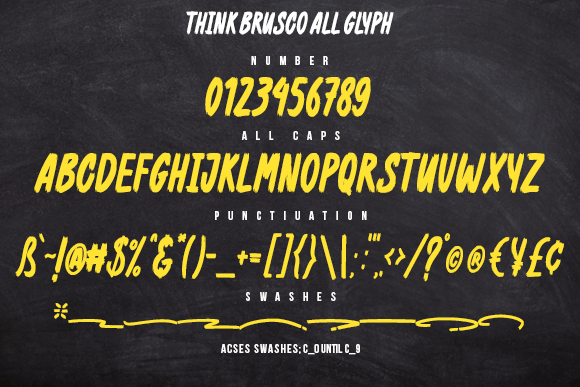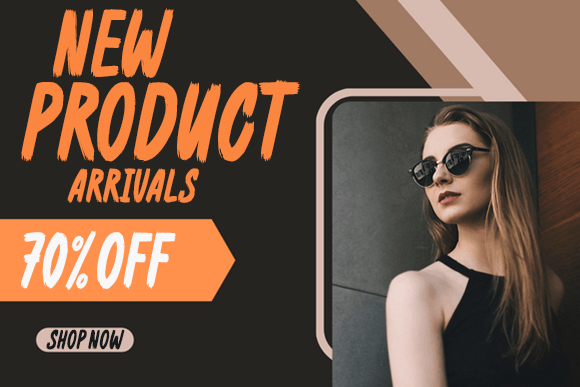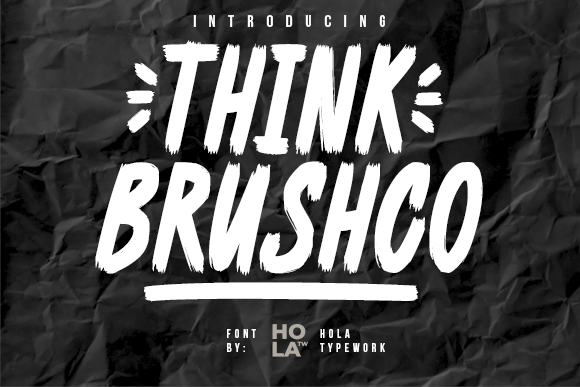
Think Brushco Font
Think Brushco Font, a textured display font that masterfully combines rawness with sophistication. Embellished with a distinctive slant, this font’s character lies within its authentic brushed texture. Versatile and adaptable, the Think Brushco font effortlessly integrates into numerous creative projects, enriching their visual appeal with a dash of modern elegance.
From infusing brand identities with unique charm to giving quotes a striking presence, from transforming social media posts into engaging art pieces to adorning magazine covers with visually stunning typography – Think Brushco is your creative partner.
Whether you’re designing captivating posters, fashioning striking advertisements, or crafting enticing product packaging, few fonts match Think Brushco’s style quotient and versatility.